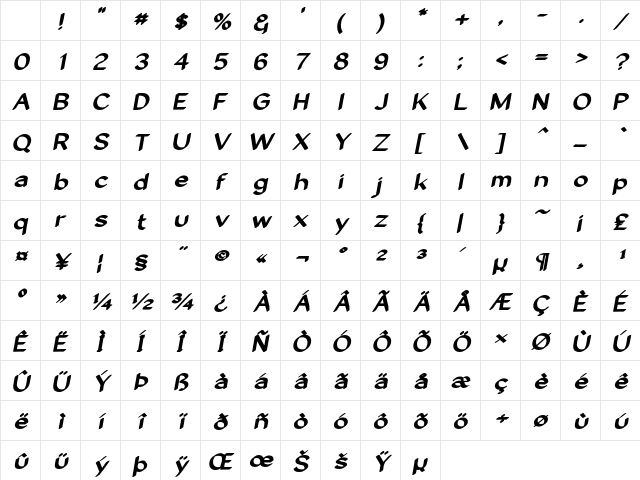
Complete Likkle Expanded Oblique Regular glyph index. Displaying only characters natively supported by Likkle Expanded Oblique Regular font.
Likkle Expanded Oblique is a composed and adaptable typeface that performs quietly and consistently across a wide range of design contexts. The slanted form adds forward momentum and visual energy.
Pro Tip: Use Likkle Expanded Oblique for emphasis, pull quotes, and subheadings where its slanted energy can add rhythm to the layout.